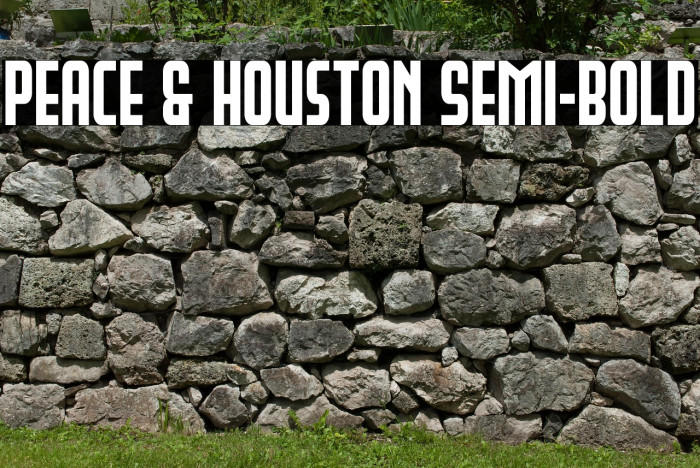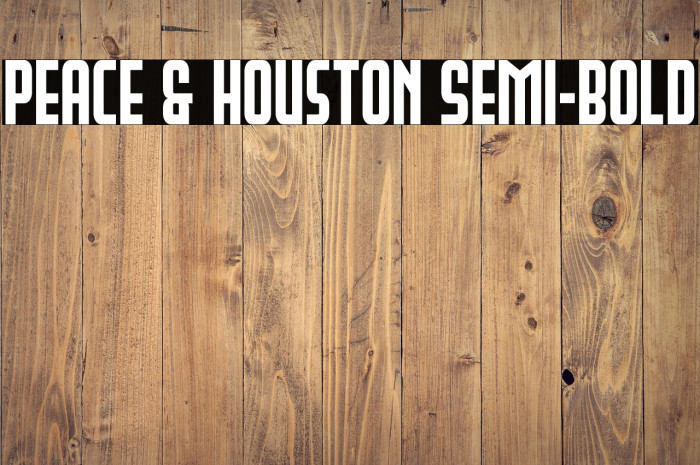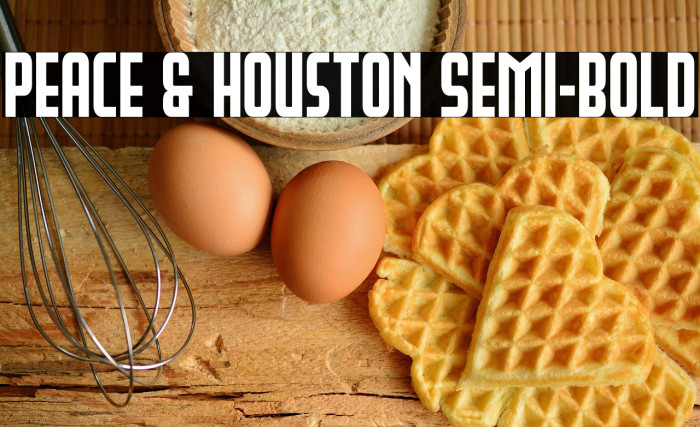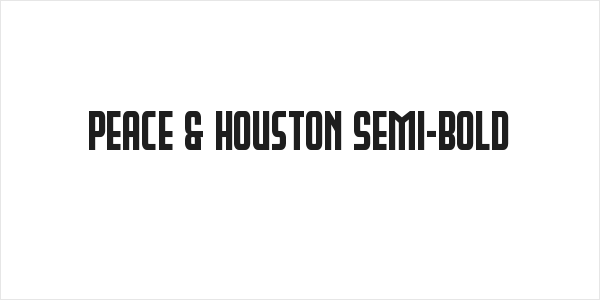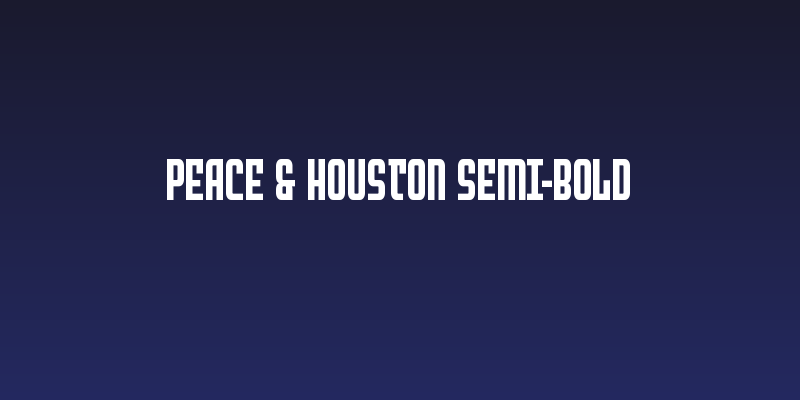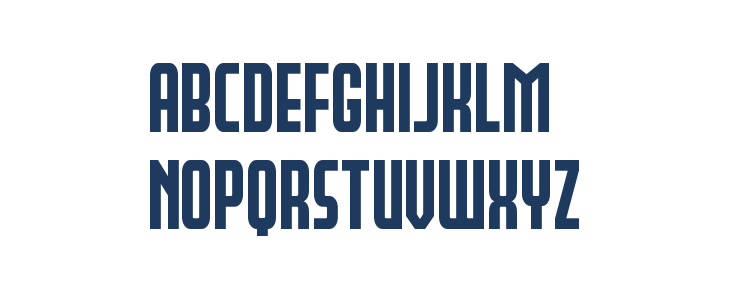
Peace & Houston Semi-Bold Font
Peace & Houston Semi-Bold Description
This font features a bold and impactful design with a strong geometric structure. The characters are tall and condensed, giving a modern and assertive appearance. The uppercase letters are uniform in height, while the lowercase letters maintain a consistent style, enhancing readability. The numbers are similarly bold, ensuring they stand out in any context. Special characters are designed to match the overall aesthetic, providing a cohesive look across all elements. The font's thick strokes and minimal contrast make it ideal for attention-grabbing headlines and titles.